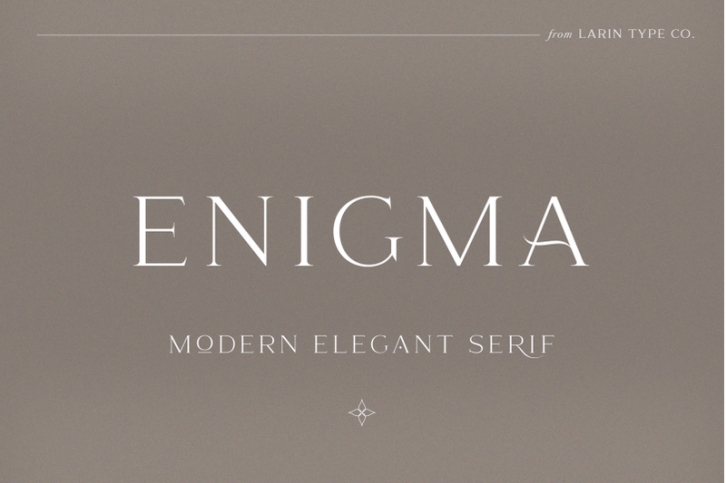
Enigma is a modern elegant serif font. in this font you will find many ligatures and alternates that give great potential for creating logos, branding, arranging wedding invitations, business cards, packaging and much more. This font will help to realize all your ideas and will not leave indifferent even the most sophisticated. Try it, change alternates and ligatures and you will see how many options you can get by creating in a classic style or a more elegant style. Lowercase completely duplicate uppercase, they have the same alternates and ligatures, but differ in size from uppercase. This font is easy to use has OpenType features.
Following international symbols support: ÀÃÂÃÄÅĄÇĆÈÉÊËĘÌÃÃŽÃÃÑŃÅÒÓÔÕÖØÙÚÛÜŚŠŸÃŹŻŽßà áâãäåçèéêëìÃîïðñòóôõöøùúûüýÿąćęłńśšźżž
Full alphabet with Uppercase and Lowercase A-Z
Numbers, fractions
Punctuation and mathematical symbols
130 Alternates for Uppercase and Lowercase, also ampersand
46 Ligatures for Uppercase and Lowerse
Swash and illustrations
Multilingual support